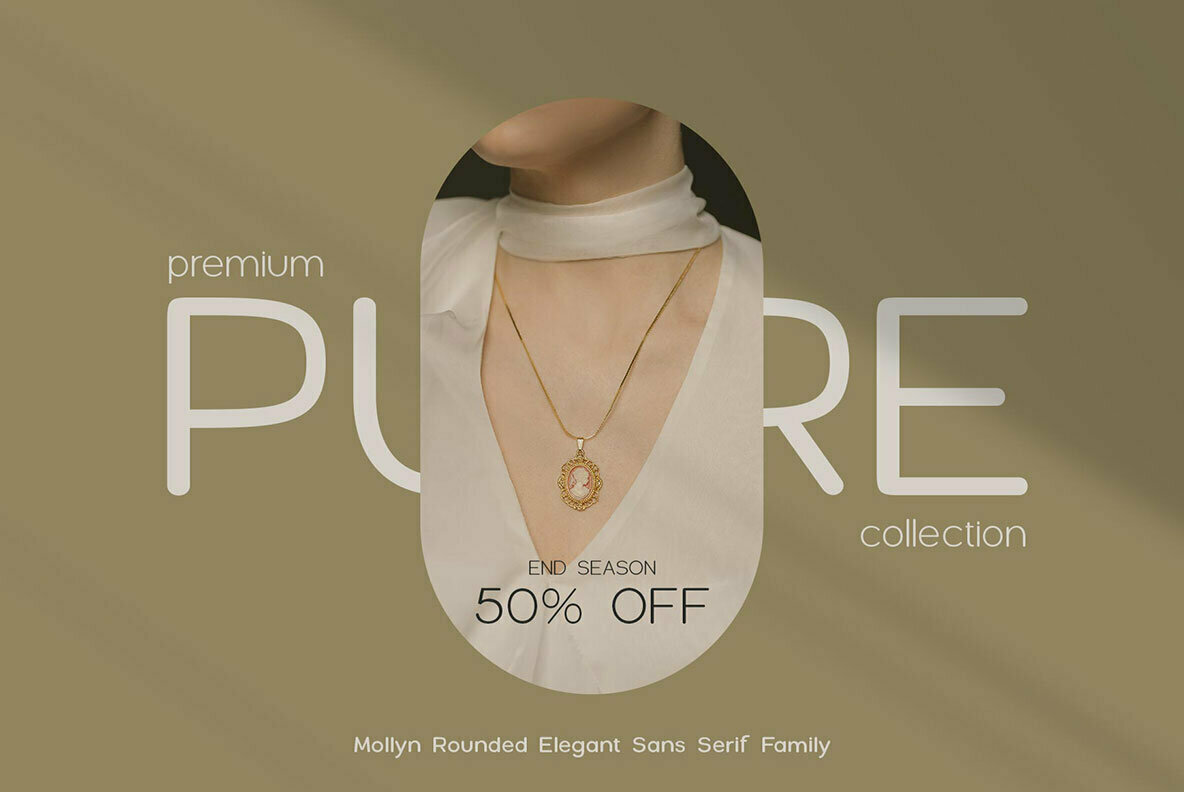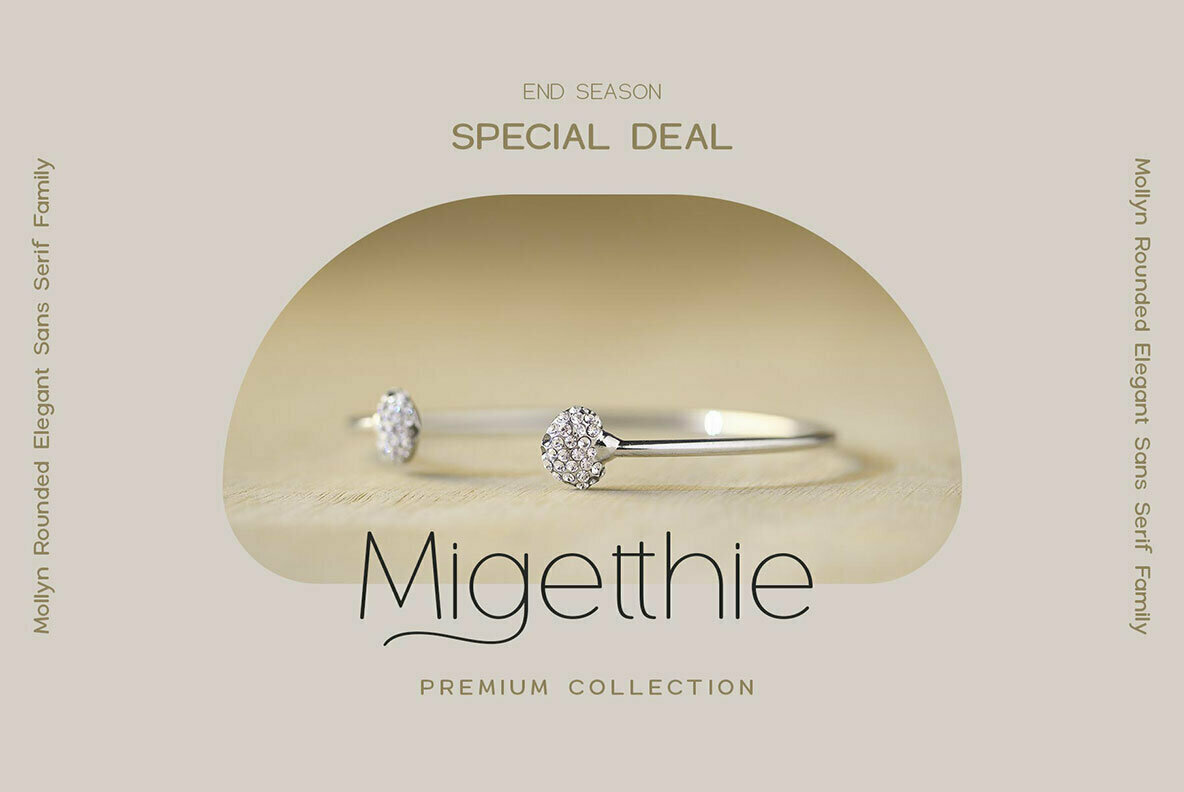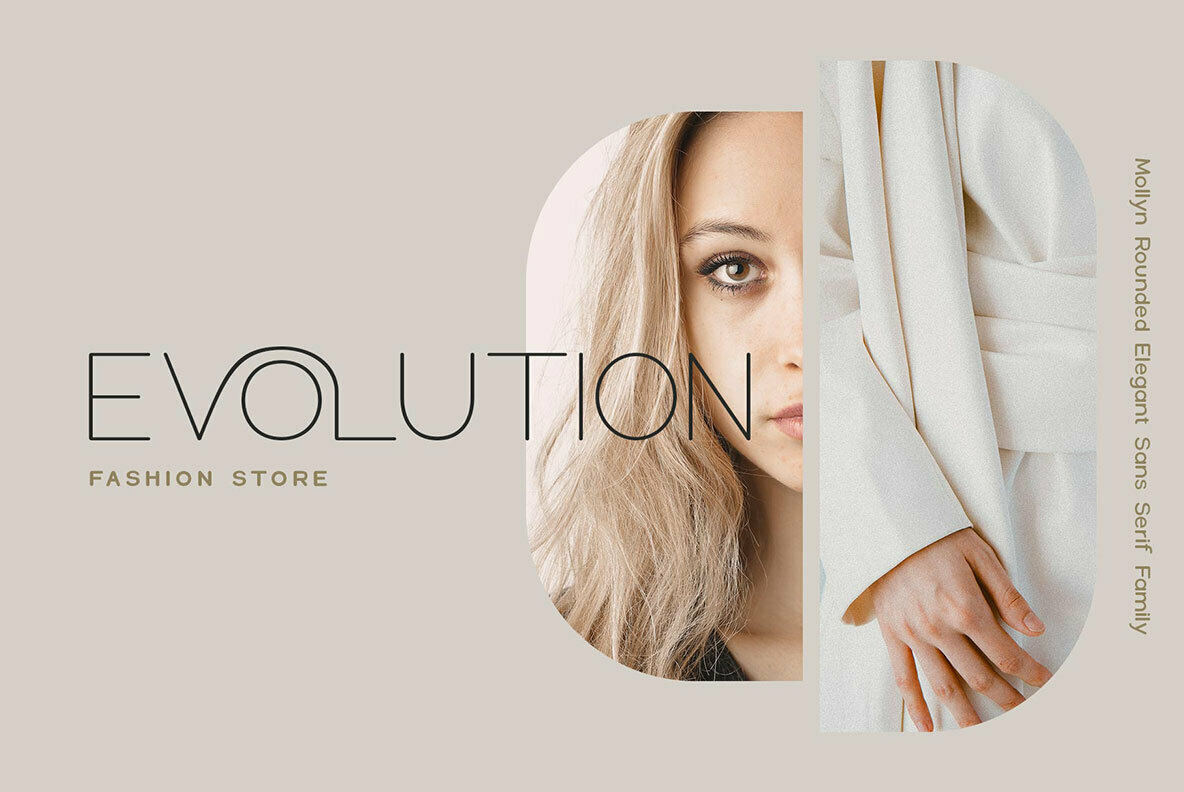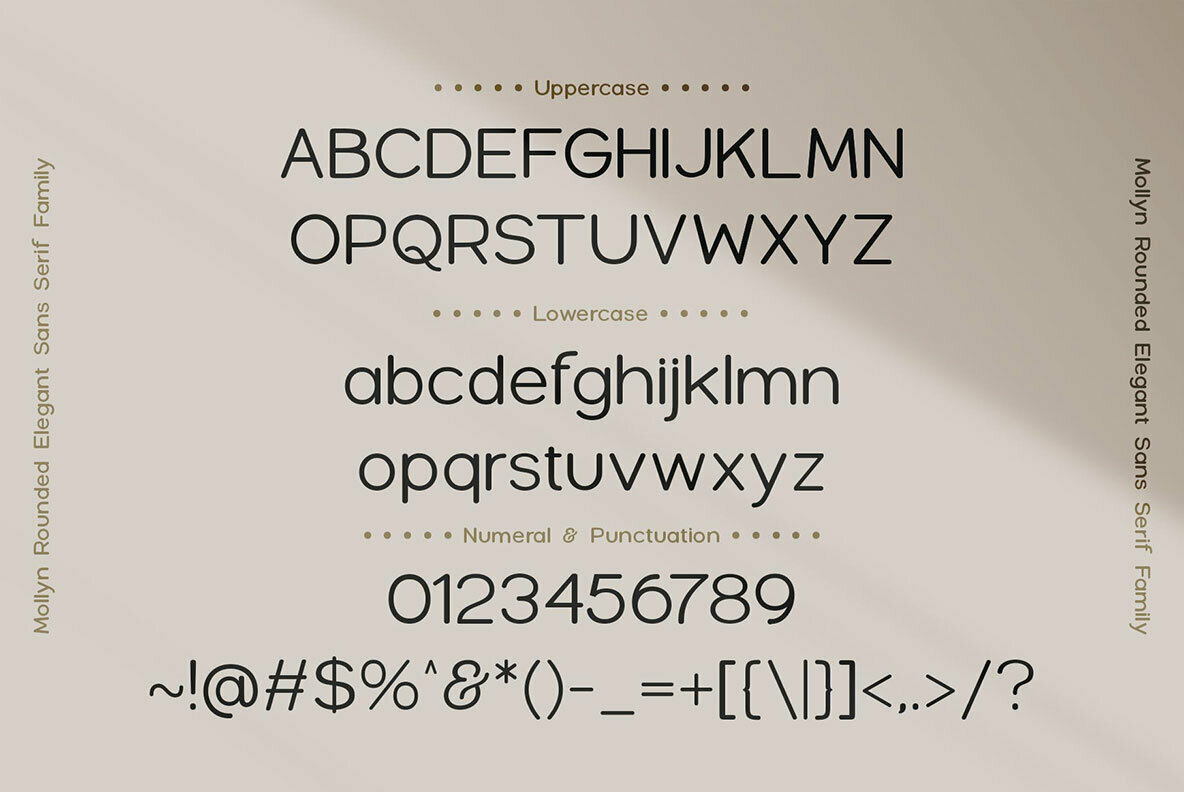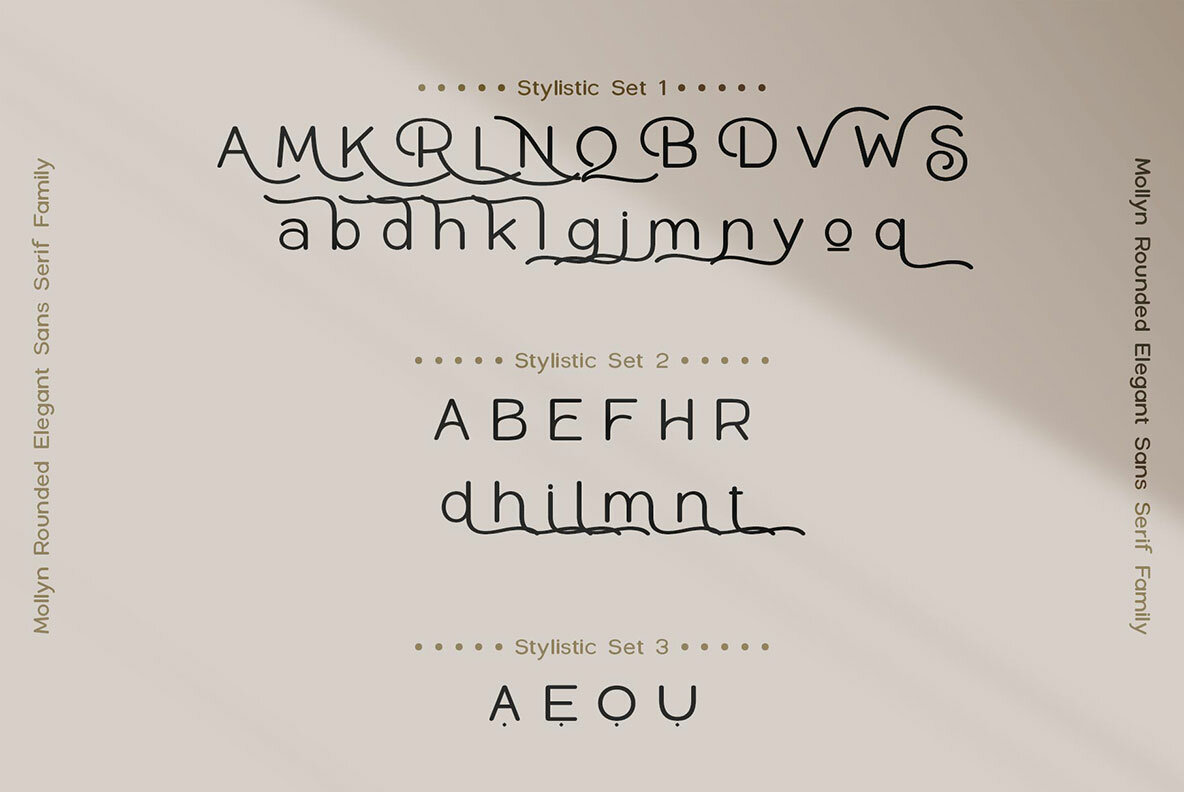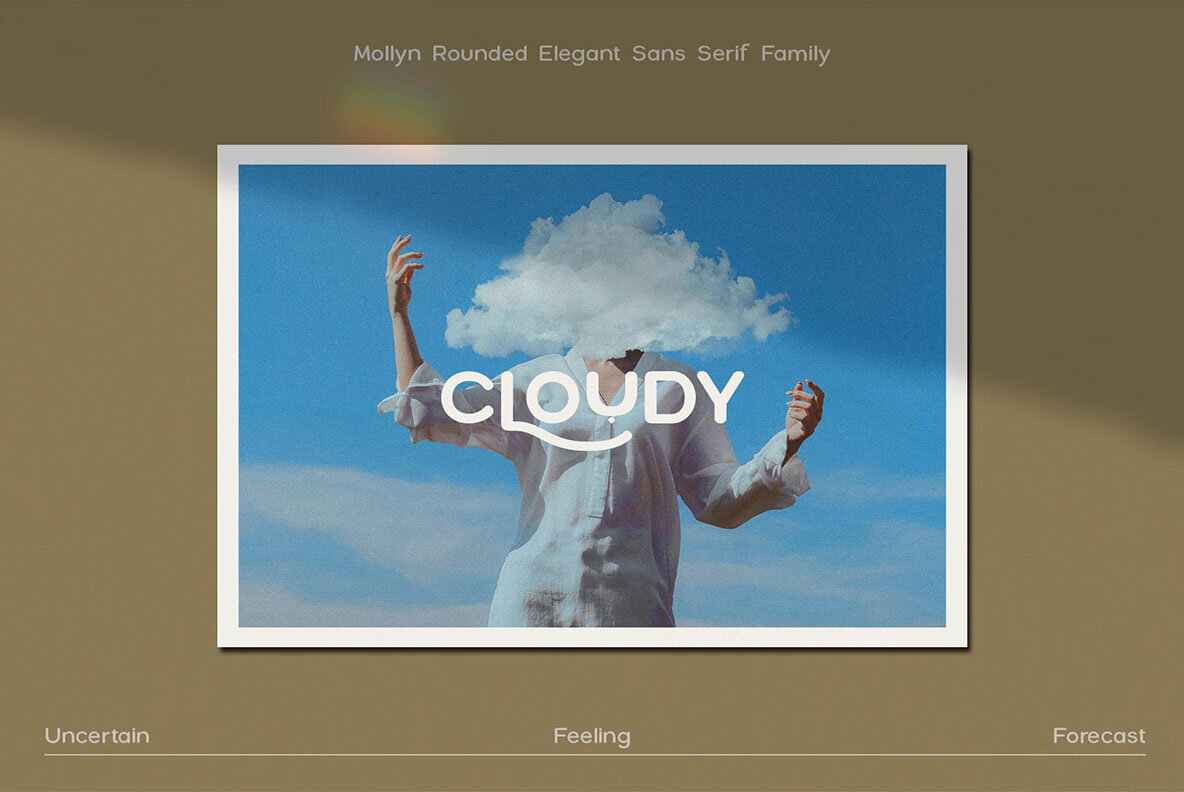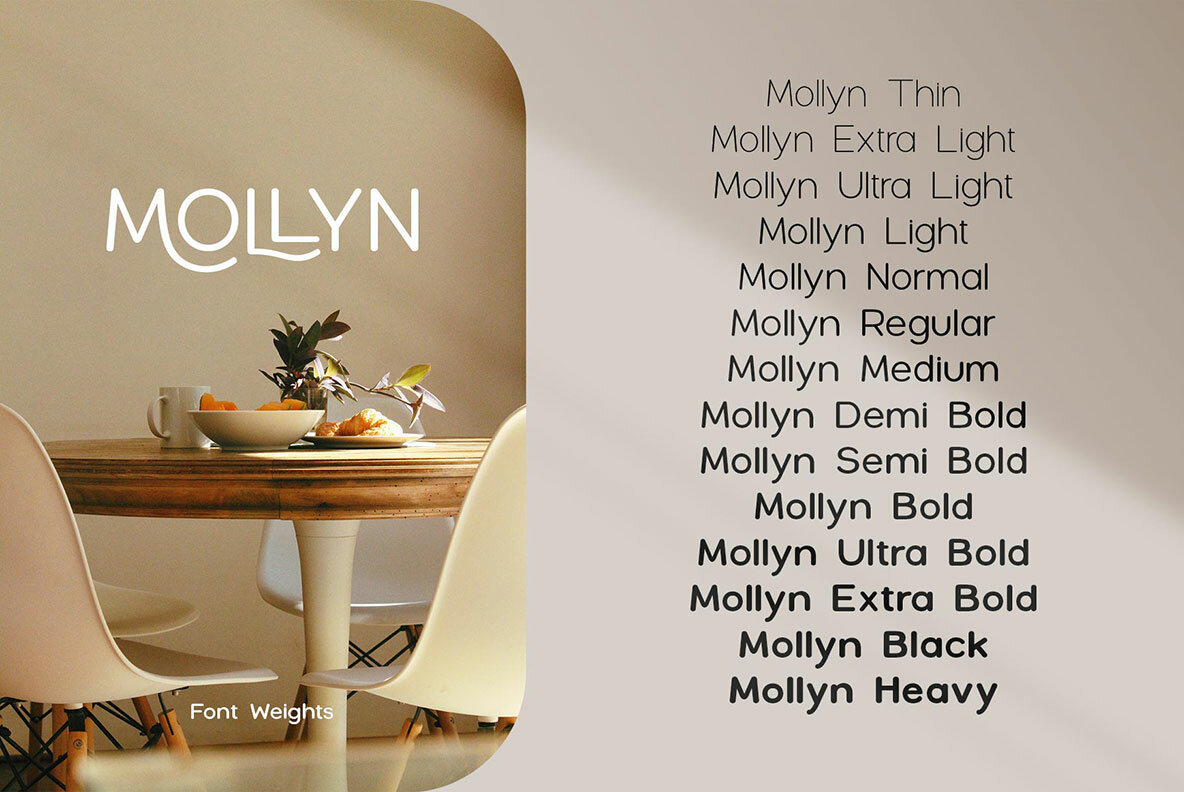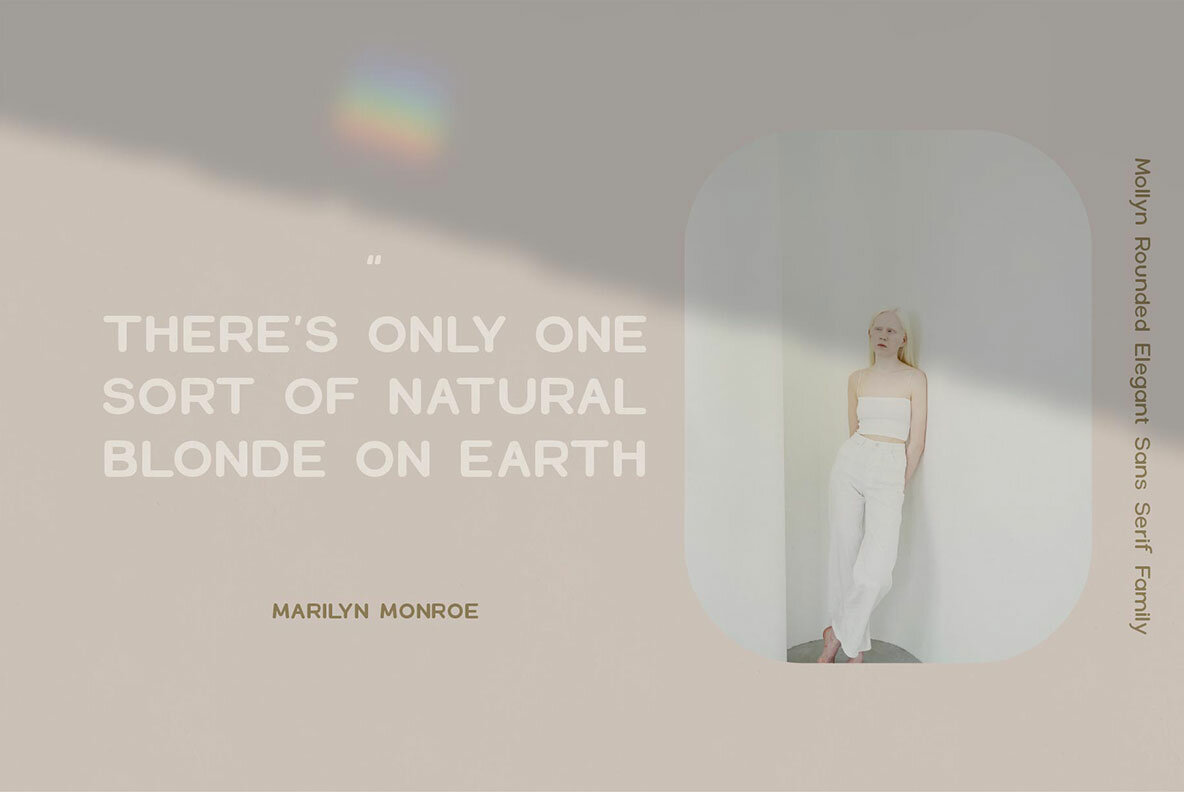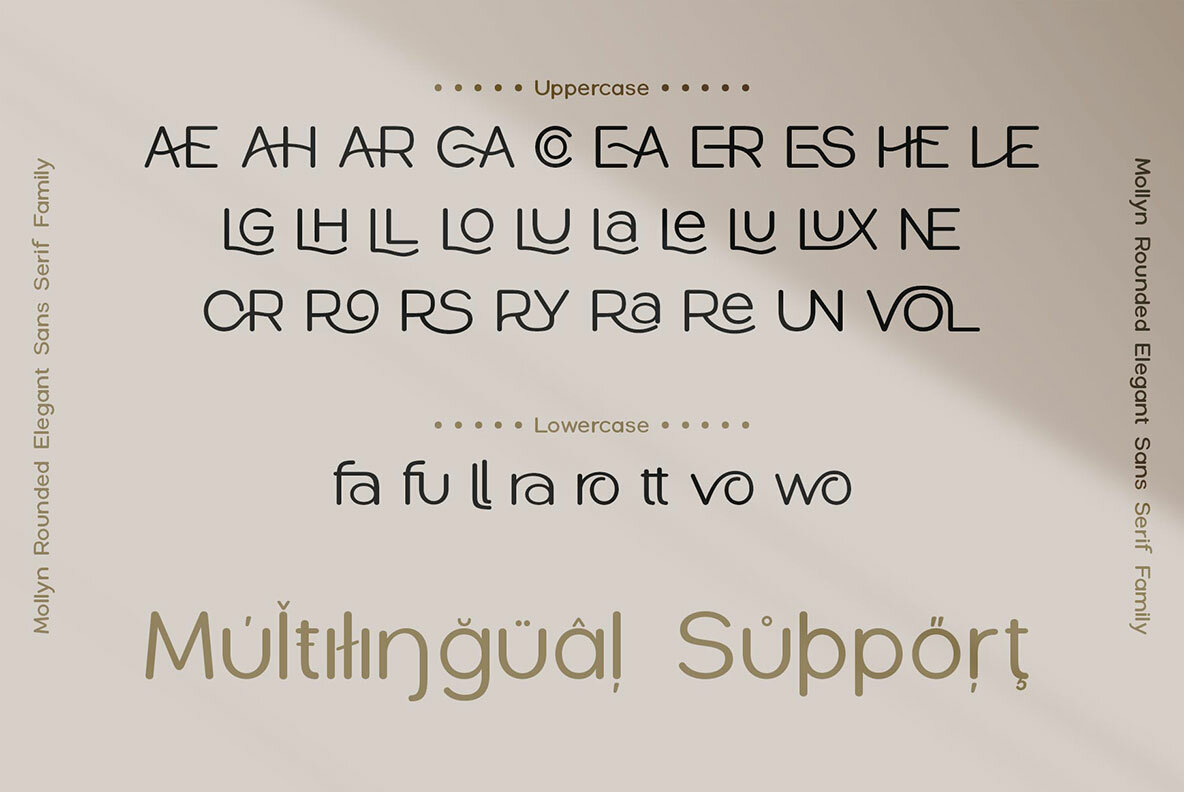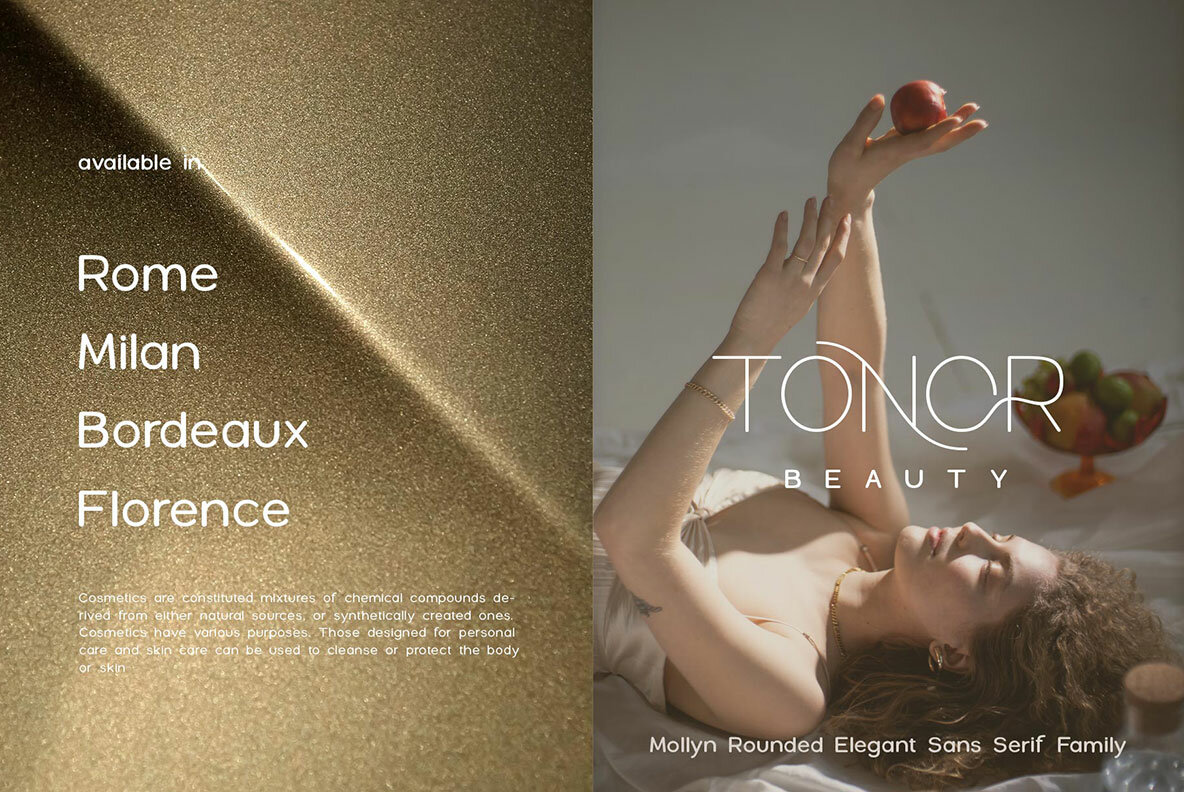
Mollyn 1
Mollyn is a unique sans-serif font that has swash alternatives and ligatures to make it even more interesting. The typeface includes 556 glyphs with many options for customizing your text, which makes Mollyn perfect as an all around family member or just when you need something different in the poster preview below!